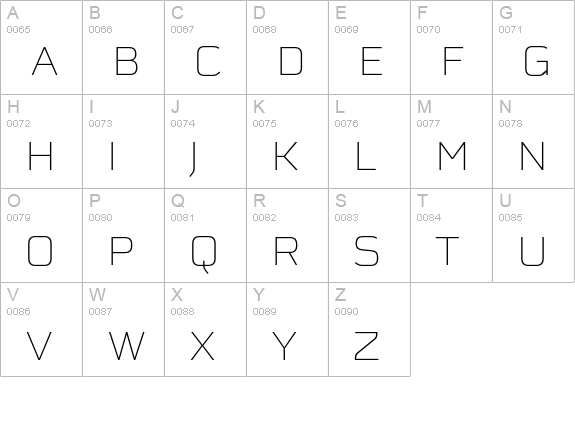
Schwager Sans Thin Font Details
Schwager Sans Thin is a delicate, low-contrast variant in the Schwager typeface family \xE2\x80\x94 well suited to fashion editorial, minimal branding, and high-contrast display.
Schwager Sans Thin font is a sleek and modern typeface that exudes elegance and sophistication. With its delicate lines and minimalistic design, this font is perfect for creating a clean and contemporary look in your projects. The Thin weight of Schwager Sans adds a touch of refinement and subtlety to your designs, making it ideal for headings, titles, and other display purposes. What sets Schwager Sans Thin font apart is that it is available for free download at FontsMarket.com. This means you can easily access and use this stylish typeface in your projects without any cost. Whether you're working on a website, branding materials, or print designs, Schwager Sans Thin font will add a touch of sophistication and modernity to your work. Download it today and elevate your designs with this stunning and versatile typeface.